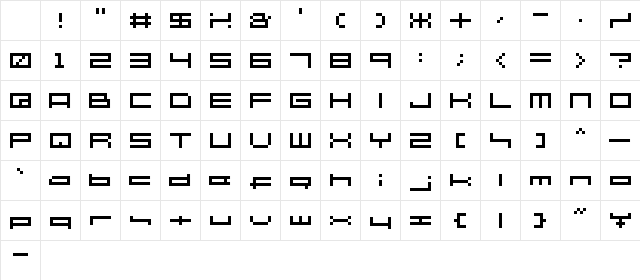
Complete SHAKAGRAPHICS 06 glyph index. Displaying only characters natively supported by SHAKAGRAPHICS 06 font.
SHAKAGRAPHICS is a composed and adaptable typeface that performs quietly and consistently across a wide range of design contexts.